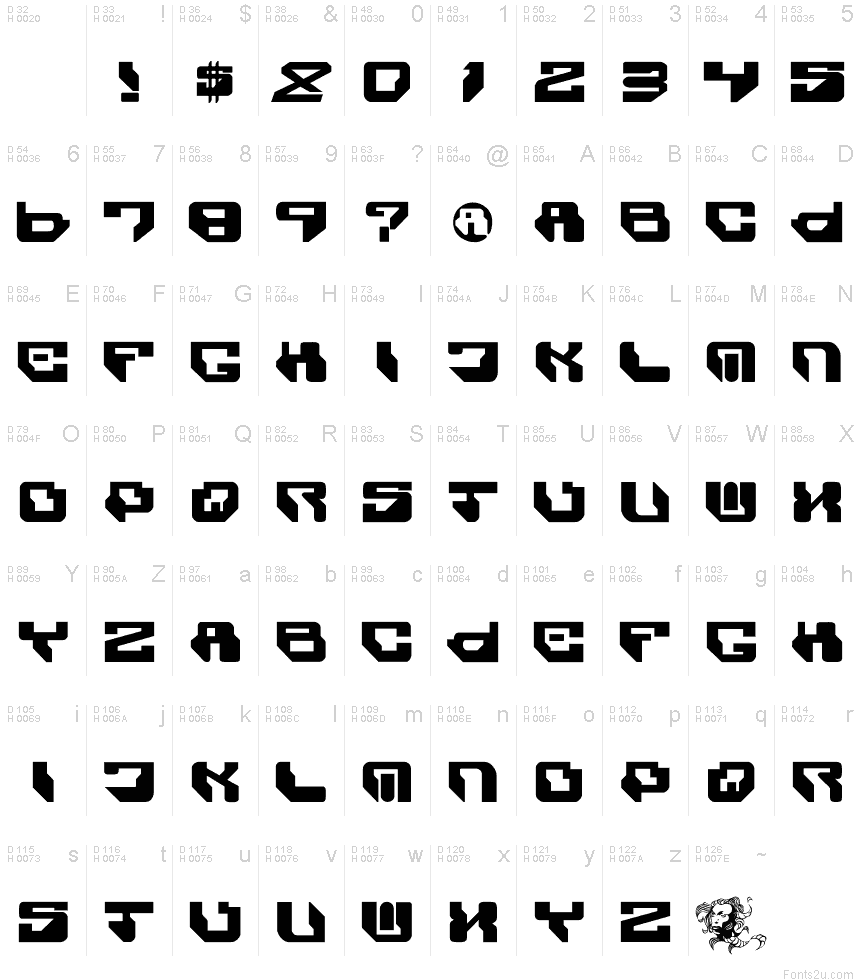
CaptivSystMRemiX
CaptivSystMRemiX font by Jason Matthew Everett is a free futuristic display typeface that looks like it was carved from a single slab of glossy black metal. Its bold, faceted curves snap into sharp angles, creating a dense, almost mechanical texture where each letter feels like a modular component in a sci‑fi interface. The rhythm is tight and forceful, so every word hits like a logo-chunky, compressed, and unapologetically experimental.
Using CaptivSystMRemiX, you can push titles and branding into full cyberpunk mode-think game logos, electronic music covers, tech event posters, experimental zines, and motion graphics. This free font shines at massive sizes where its jagged geometry can really lock together and form a solid visual wall. For supporting text, pair it with a clean geometric sans in a lighter weight to keep things readable while letting CaptivSystMRemiX do the heavy visual lifting.